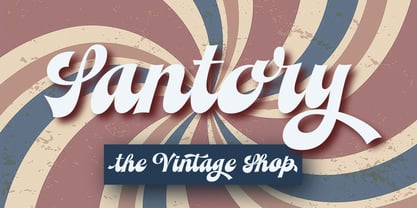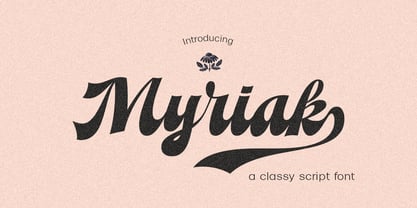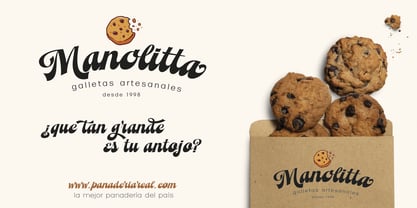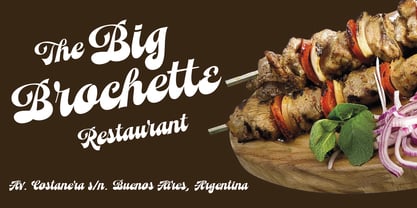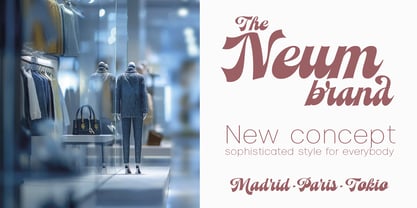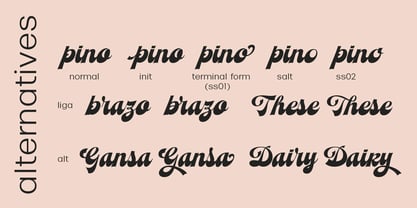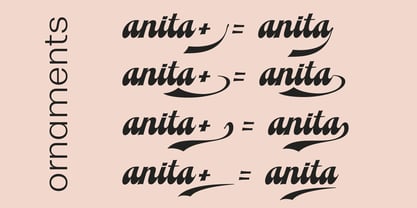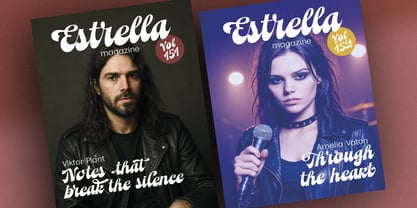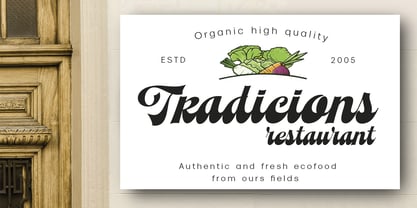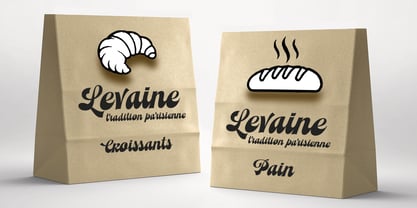
Myrak
by Eurotypo
The Myrak Font Family was designed by Carine de Wandeleer and published by Eurotypo. Myrak contains 1 styles.
Myrak is a vintage-inspired script typeface that seamlessly blends classic charm with a bold, handcrafted style. Its flowing curves, retro shapes, and nostalgic personality infuse a refined, old-school feel into any project. Designed for timeless elegance, Myrak is equipped with advanced OpenType features and top-tier quality. It offers stylistic and contextual alternatives, a distinctive mix of ligatures and letter variations, as well as initial and terminal forms, providing you with full creative flexibility. Myrak is compatible with a wide range of languages and includes unique tails to add a special touch to your designs. This font is perfect for various applications, including logos, branding, magazine or book titles, posters, stickers, packaging, Cricut creations, apparel designs, greeting cards, and social media platforms like YouTube and Instagram. It also enhances websites and Canvas layouts, making it an ideal choice for any creative project that requires a stylish retro twist. Incorporate Myrak into your toolkit to give your designs a fresh yet nostalgic edge. Each of our fonts is crafted with character, and Myrak is no exception, ready to elevate and enrich your next design project.